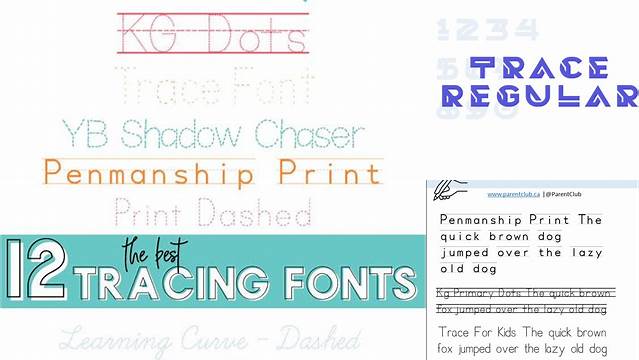
Free Trace Fonts: Download Now!
Hey guys! Ever needed some cool fonts for tracing? You're in the right spot! We're diving deep into the world of trace fonts, and guess what? We're talking about free downloads! So, buckle up and let’s get started on this fontastic journey!
1. Understanding Trace Fonts
So, what exactly are trace fonts? Think of them as fonts designed to be easily traced over, making them perfect for learning handwriting, calligraphy, or just adding a unique touch to your designs. These fonts often come in dotted or dashed outlines, providing a clear path to follow. The beauty of trace fonts lies in their versatility; they’re not just for kids learning to write. Artists and designers use them to create custom lettering, engaging educational materials, and even stylish invitations. Whether you're crafting worksheets, designing a logo, or simply practicing your penmanship, trace fonts can be a game-changer. And the best part? There’s a huge variety out there, from elegant scripts to playful block letters, ensuring you’ll find the perfect font for your project. This is why having access to a free download resource is so valuable! Imagine the possibilities—from creating personalized birthday cards to developing educational tools that are both fun and effective.
2. Why Use Trace Fonts?
Why should you even bother with trace fonts, you ask? Well, there are tons of reasons! First off, they're amazing for learning handwriting. Whether you're a kid just starting out or an adult wanting to improve your penmanship, tracing helps build muscle memory and develops a feel for letter shapes. But the benefits don't stop there. Trace fonts are also fantastic for creative projects. Think about making personalized invitations, unique greeting cards, or eye-catching posters. The distinctive style of trace fonts adds a handmade, artistic touch that stands out. Plus, let's not forget the educational side. Teachers and parents can use trace fonts to create engaging worksheets, helping kids learn letter formation and word recognition in a fun way. And for those who love calligraphy, trace fonts provide a great starting point to master elegant strokes and flourishes. Finding a free download allows you to explore these possibilities without breaking the bank. You can experiment with different styles and applications, making your creative journey both affordable and enjoyable. So, yeah, trace fonts are pretty awesome!
7. Using Trace Fonts in Word Processors
So, you've got your trace fonts downloaded and installed—time to put them to work! One of the most common uses is in word processors like Microsoft Word or Google Docs. Using trace fonts in these programs is super easy. First, open your word processor and start a new document. Then, click the font selection dropdown menu—it's usually at the top of the screen, showing the current font name. Scroll through the list until you find your newly installed trace font. Click on it to select it. Now, anything you type will appear in that font! To create tracing practice, you can type out words or sentences using the trace font, then print the document. This is perfect for kids learning to write or anyone practicing calligraphy. You can also adjust the font size and color to customize your tracing materials. For example, using a light gray color can make the outlines easier to see and trace over. Word processors also let you add lines and spacing, making it simple to create structured tracing exercises. With these simple steps, you can transform your word processor into a powerful tool for handwriting practice using your free trace fonts.
8. Incorporating Trace Fonts in Design Software
If you’re a designer, you'll love using trace fonts in design software like Adobe Illustrator, Photoshop, or Inkscape. These programs offer a ton of flexibility for incorporating trace fonts into your projects. The process is similar to using them in word processors: first, make sure the font is installed on your system. Then, open your design software and select the text tool. Choose your trace font from the font dropdown menu, just like you would in Word or Google Docs. Now, you can type out your text in the trace font. But here's where design software really shines: you can customize the appearance of the font in countless ways. You can change the stroke width, add fills, and even convert the text to outlines, allowing you to manipulate each letter individually. This is perfect for creating unique lettering effects or integrating the trace font seamlessly into your designs. For example, you could use a trace font to create a hand-lettered logo or a custom invitation with a personal touch. The possibilities are endless! And since you're using free trace fonts, you can experiment with different styles without worrying about budget constraints. Design software makes it easy to bring your creative vision to life with the help of trace fonts.
9. Creating Educational Materials with Trace Fonts
One of the most impactful uses for trace fonts is in creating educational materials. If you're a teacher, parent, or homeschooler, these fonts can be a game-changer for helping kids learn to write. The key is to design engaging and effective practice sheets. Start by typing out letters, words, or sentences using a trace font in a word processor or design software. A light gray color works well for the outlines, as it provides a clear guide without being too overwhelming. You can then print these sheets and have kids trace over the letters. To make the activity more fun, consider adding illustrations or thematic elements related to the words they're tracing. For example, if they're tracing the word